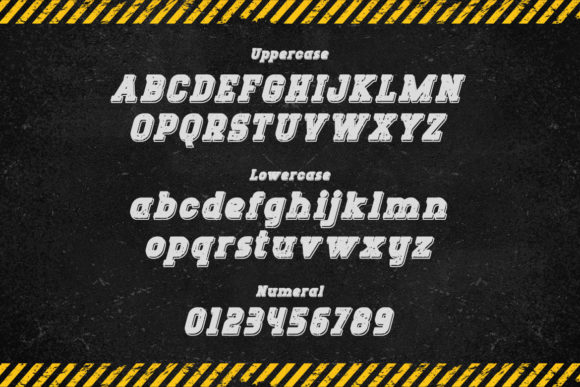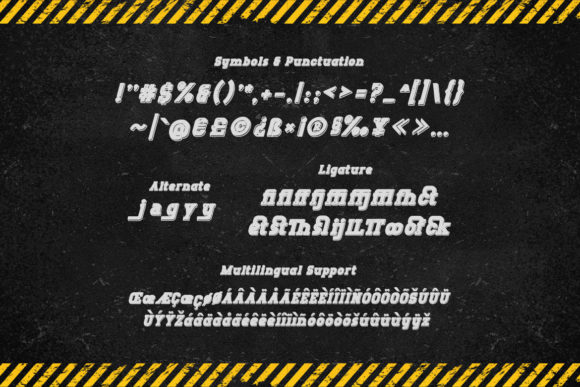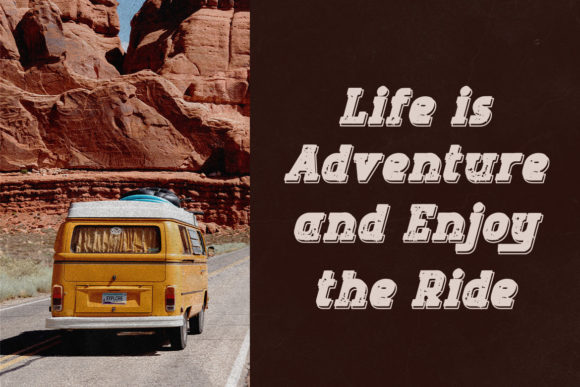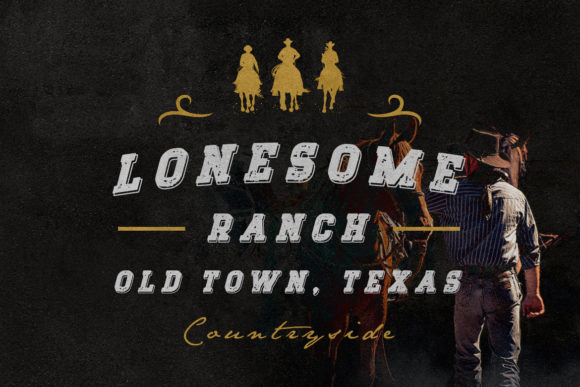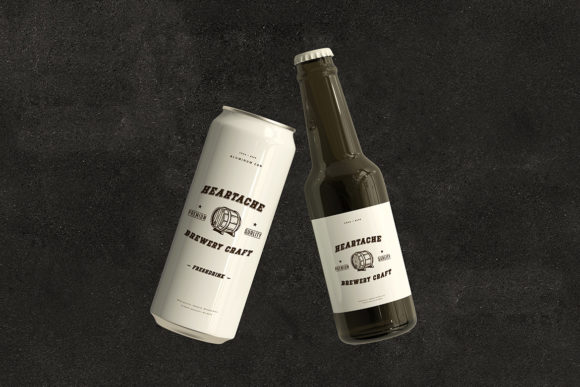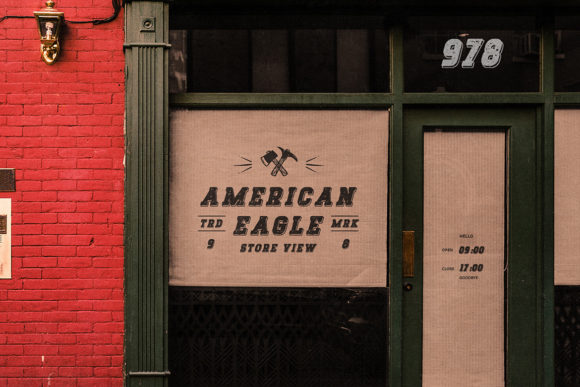
Introduction to Dirty Drags Font Font
Fonts play a crucial role in design, and the Dirty Drags Font font is a typeface that brings both character and versatility to any project. Whether you’re working on a branding project, a website, or a print design, the Dirty Drags Font font offers a unique style that can elevate your work.
Dirty Drags is a cool, bold and vintage styled display font, thatβs great for delivering any message with confidence, authenticity and charm.
It will elevate a wide range of crafting ideas, from cards, to branding, labels and much more .
Key Features of Dirty Drags Font Font
Why Choose Dirty Drags Font Font?
The Dirty Drags Font font is more than just a typeface β it’s a design tool that helps you communicate your message with style and clarity. Its unique character set and versatile design make it suitable for a wide range of applications, from elegant invitations to bold headlines.
With its carefully crafted letterforms and balanced proportions, the Dirty Drags Font font ensures readability and visual appeal across all mediums.
What makes Dirty Drags Font font special?
The Dirty Drags Font font stands out with its unique design, exceptional readability, and versatility across various design applications.